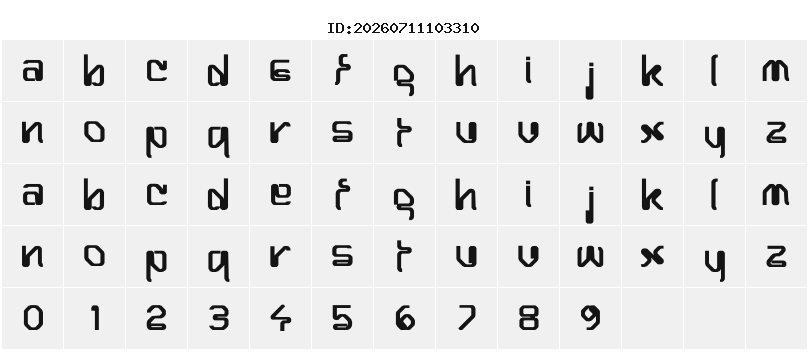
• Font Name: Hairpin-Normal Bold
About Hairpin-Normal Bold.ttf
Hairpin-Normal Bold.ttf is a modern, elegant sans-serif font designed for ultimate readability and visual harmony. Perfect for branding, headlines, web design, and print materials.